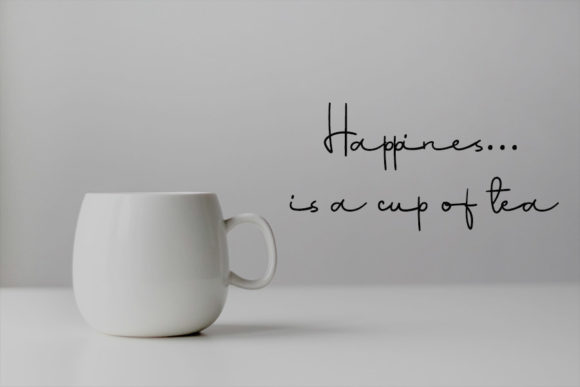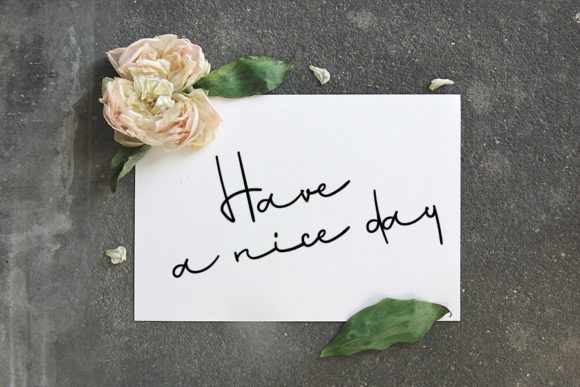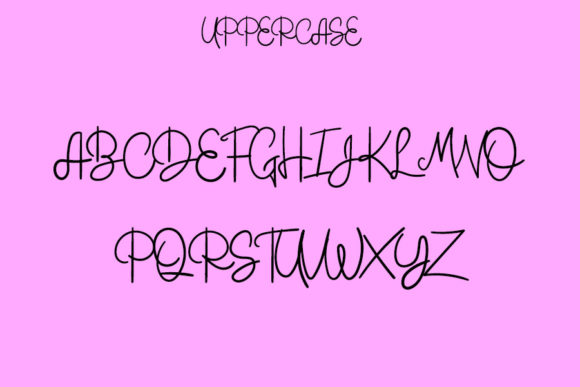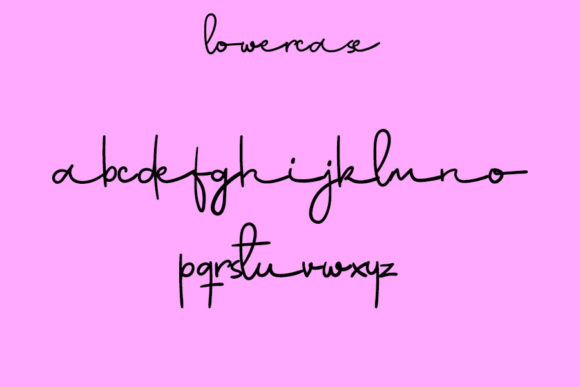
Introduction to Secret Lullaby Font
Secret Lullaby is a simple and minimal handwritten font.
Use it to make your ideas even more realistic and create spectacular designs .
Key Features of Secret Lullaby Font